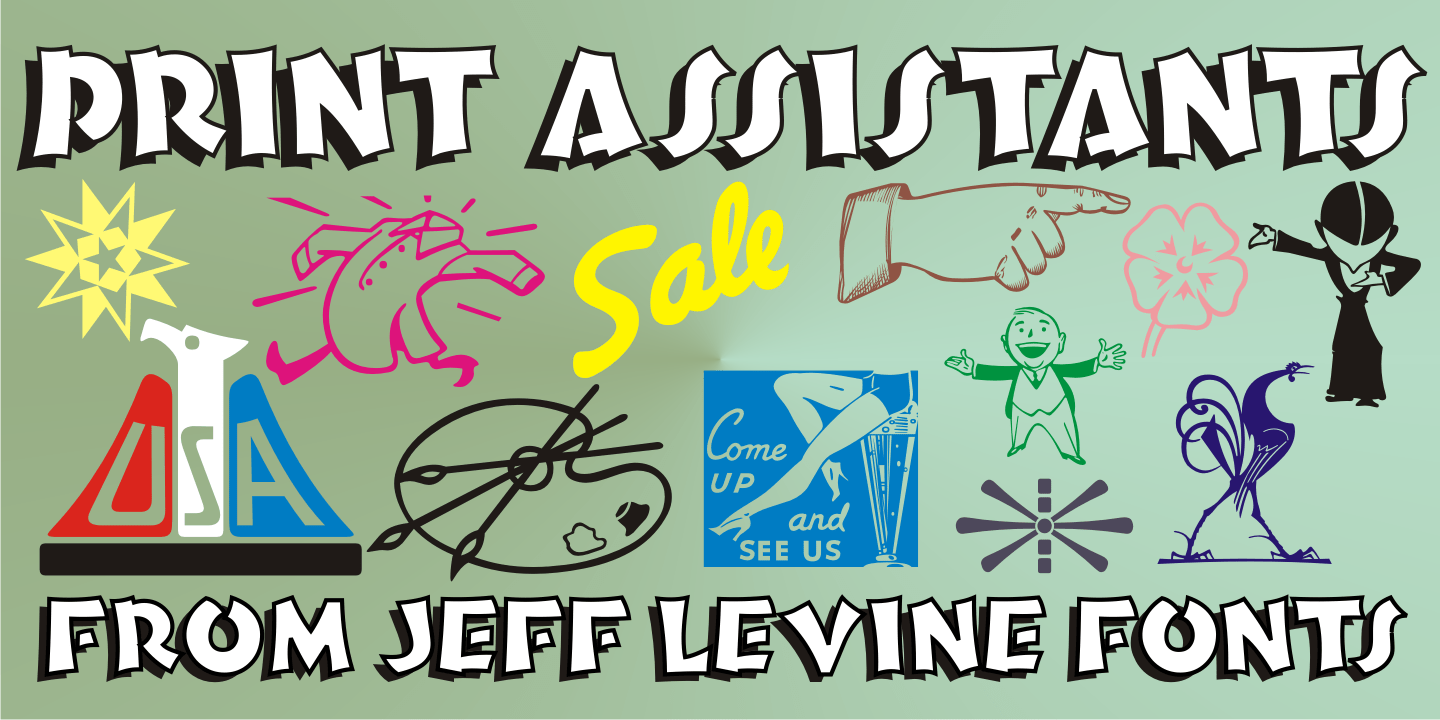
Print Assistants
For those who can't get enough of the wonderful illustrations, embellishments and dingbats of days gone by, Print Assistants JNL collections more of them in one handy font file.